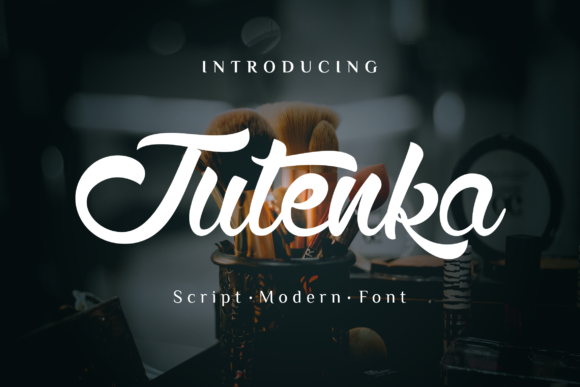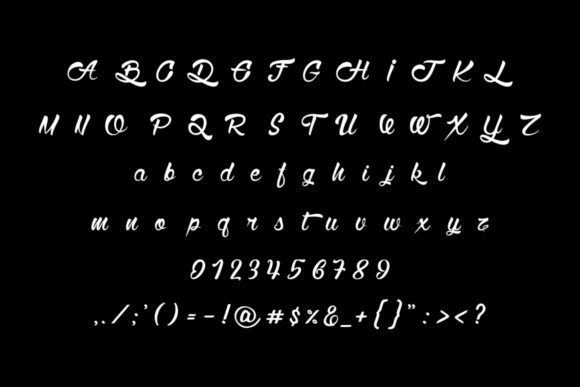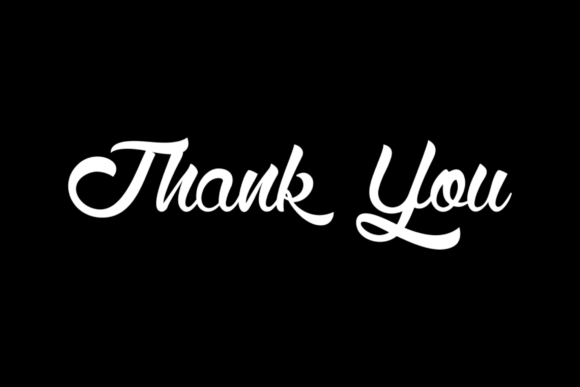
About Jutenka Font
Jutenka is a bold and authentic script font. The font is suitable for any branding project like logo, t-shirt printing, sports, and many more. It will look outstanding in a wide range of contexts.